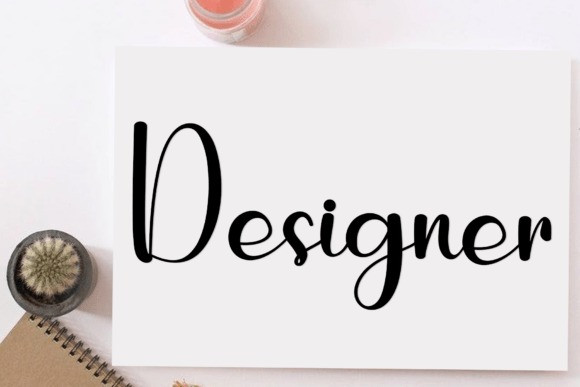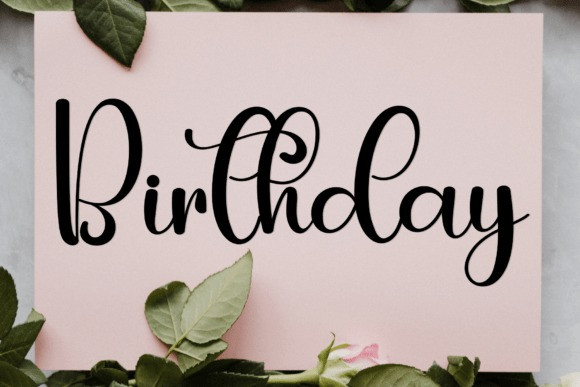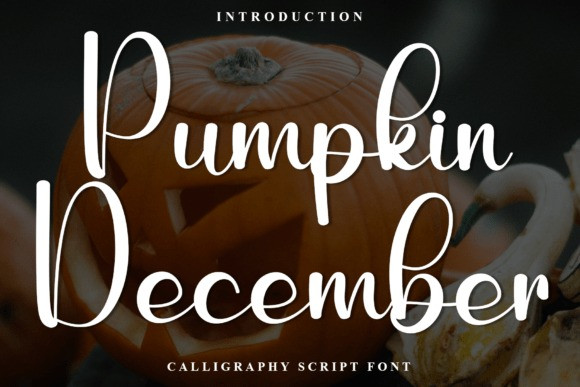
Pumpkin December Font
Pumpkin December Font is a beautifully flowing, modern calligraphy script font characterized by its clean connections, bold stroke weight, and graceful, exaggerated loops. It blends a high degree of elegance with a confident, handwritten feel, making it versatile for both seasonal and sophisticated designs. This font is perfect for holiday greeting cards, wedding invitations, custom signature logos, and any project that requires a stylish, refined, and heartfelt script.